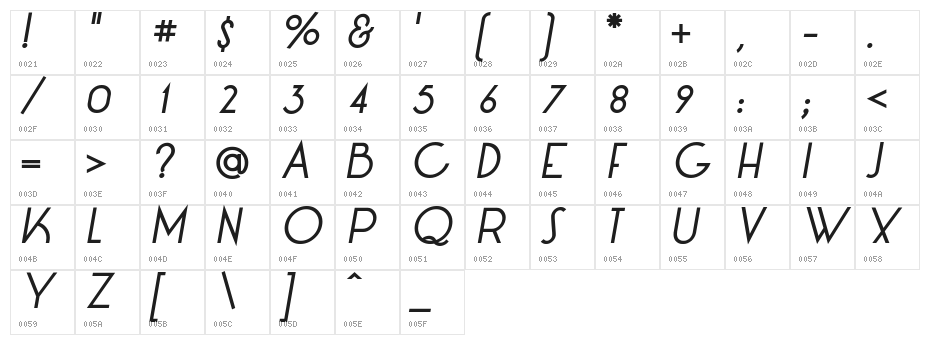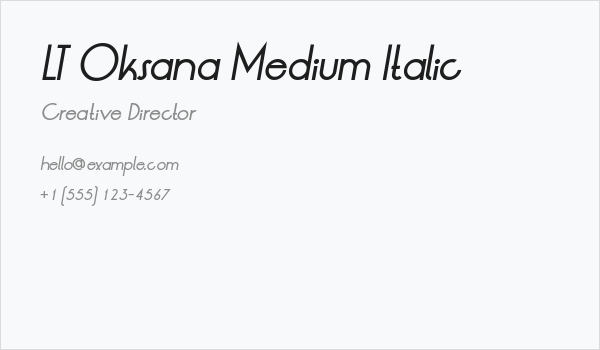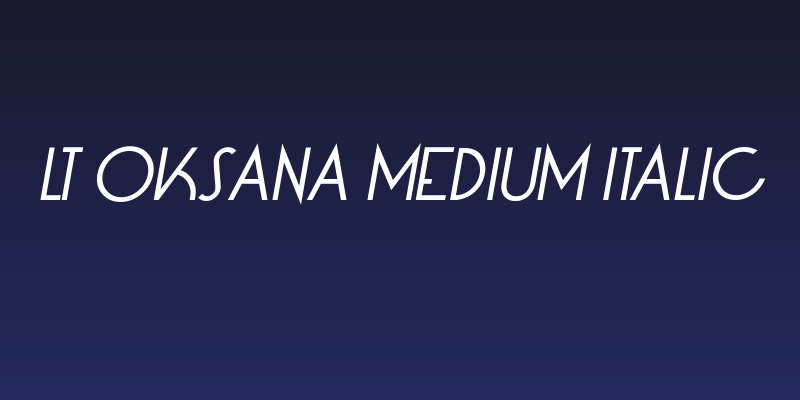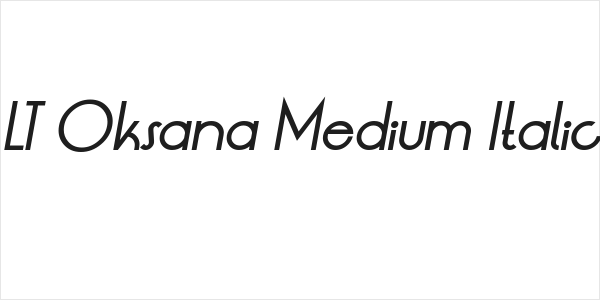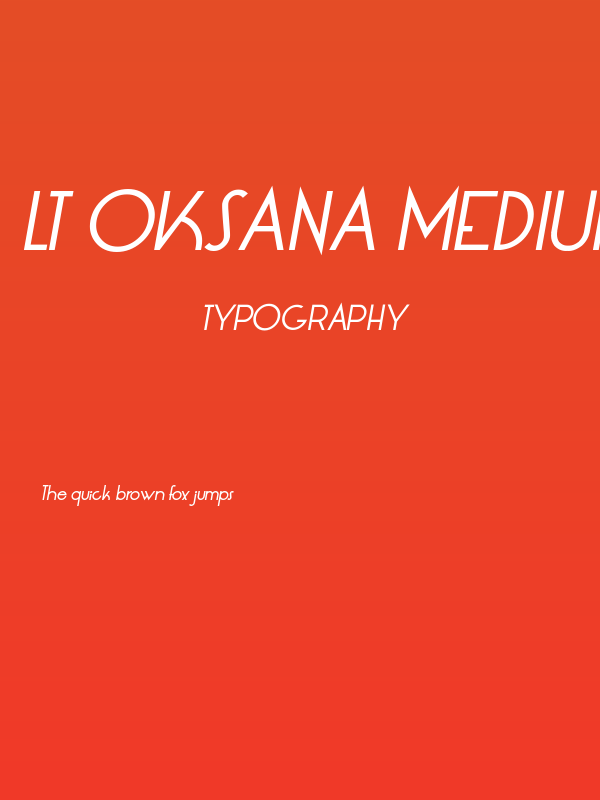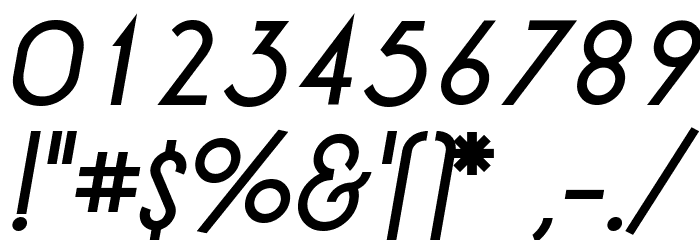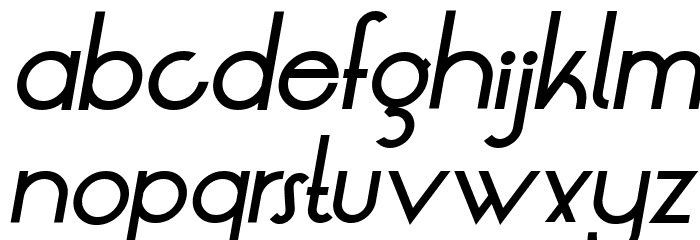
LT Oksana Medium Italic Font
LT Oksana Medium Italic Description
This font features a sleek and modern italic style with a medium weight, offering a dynamic and elegant appearance. The characters are slightly slanted, providing a sense of motion and fluidity. The uppercase letters are tall and narrow, while the lowercase letters maintain a consistent flow with rounded edges. The numerals are clear and distinct, complementing the overall aesthetic. Special characters are well-integrated, maintaining the font's cohesive look. This typeface is versatile, suitable for both digital and print media, and can enhance the visual appeal of various design projects.
| Proposed Projects | Ideal for branding, editorial design, advertising, and digital media projects. |